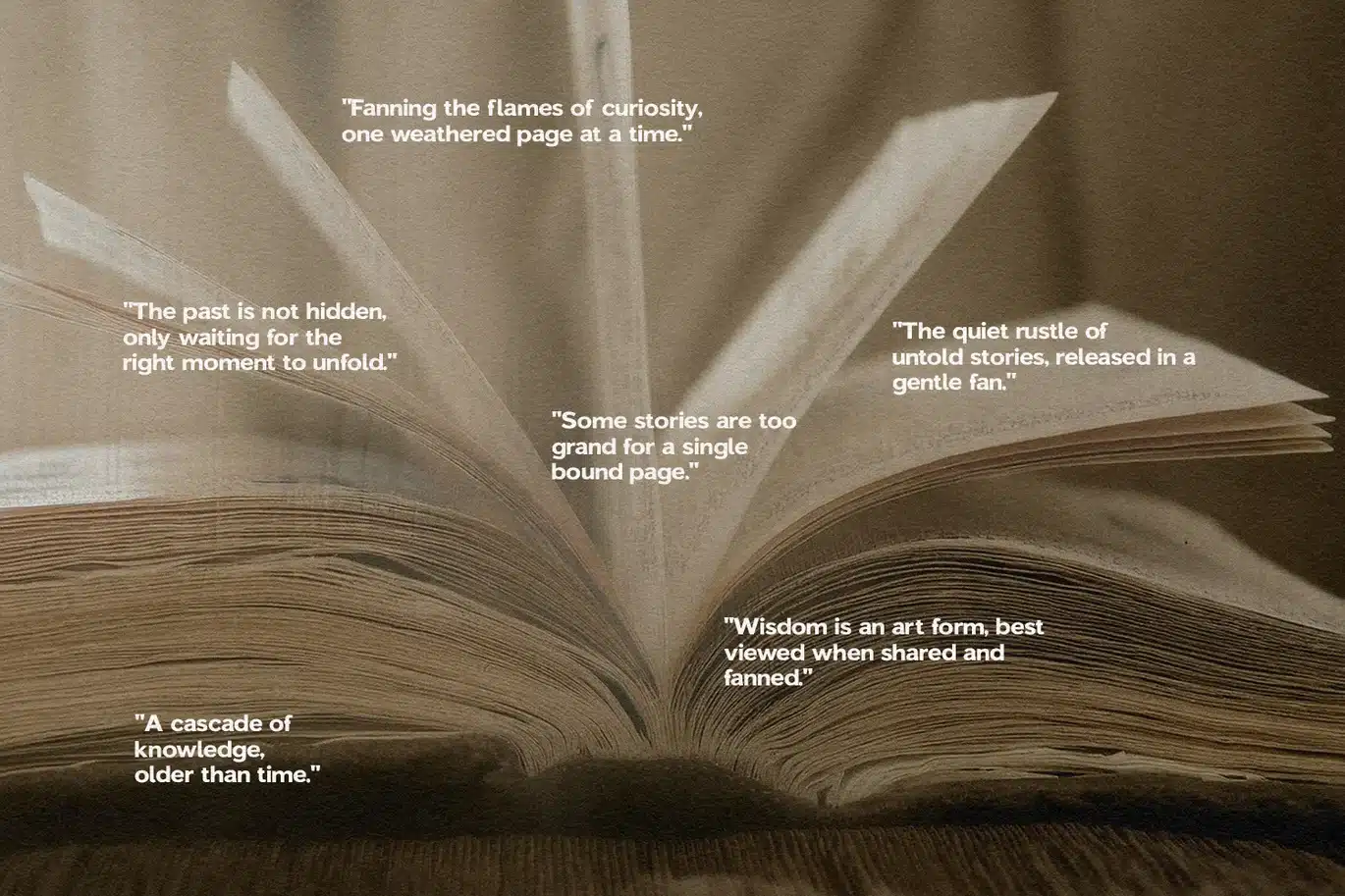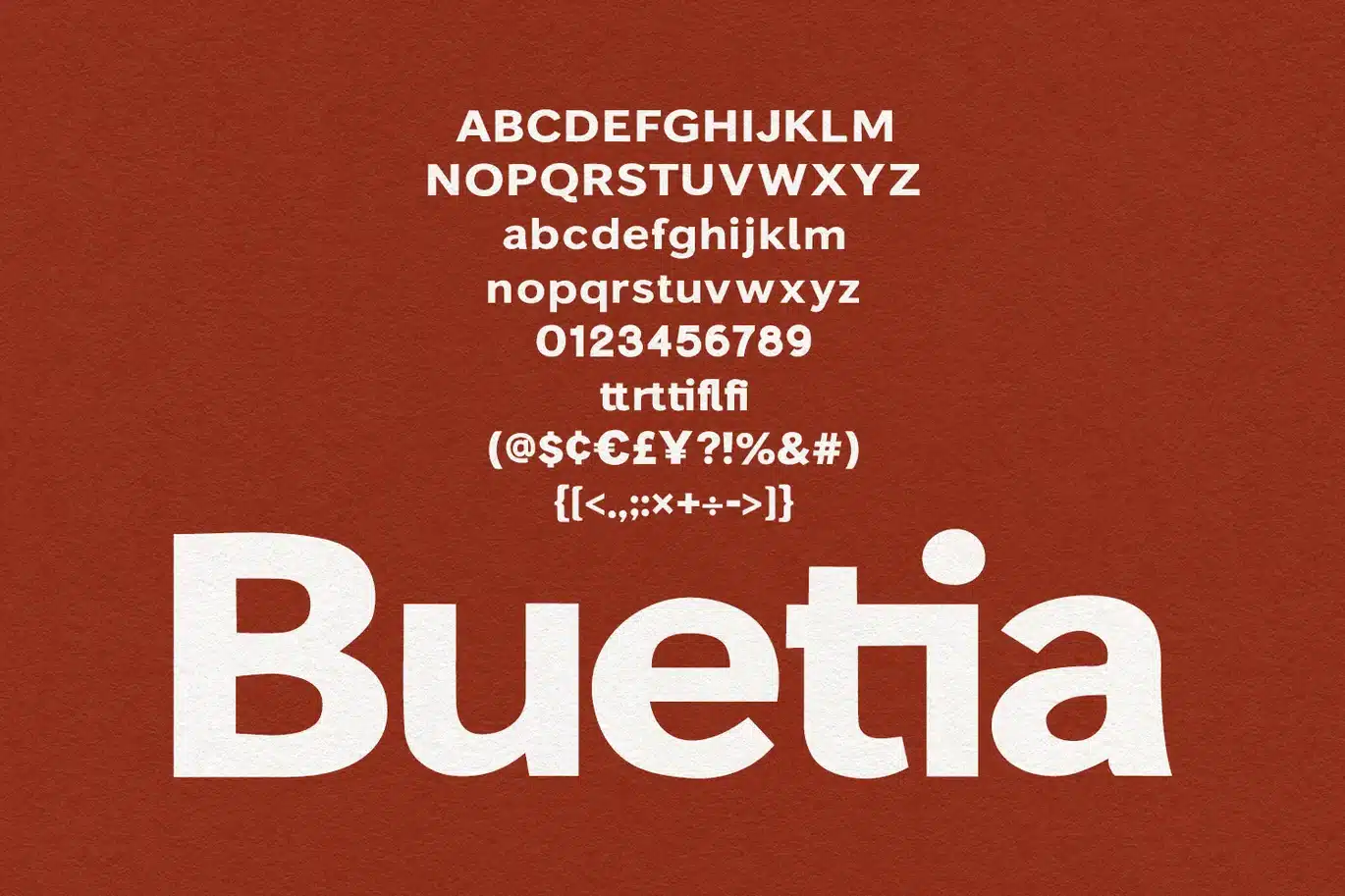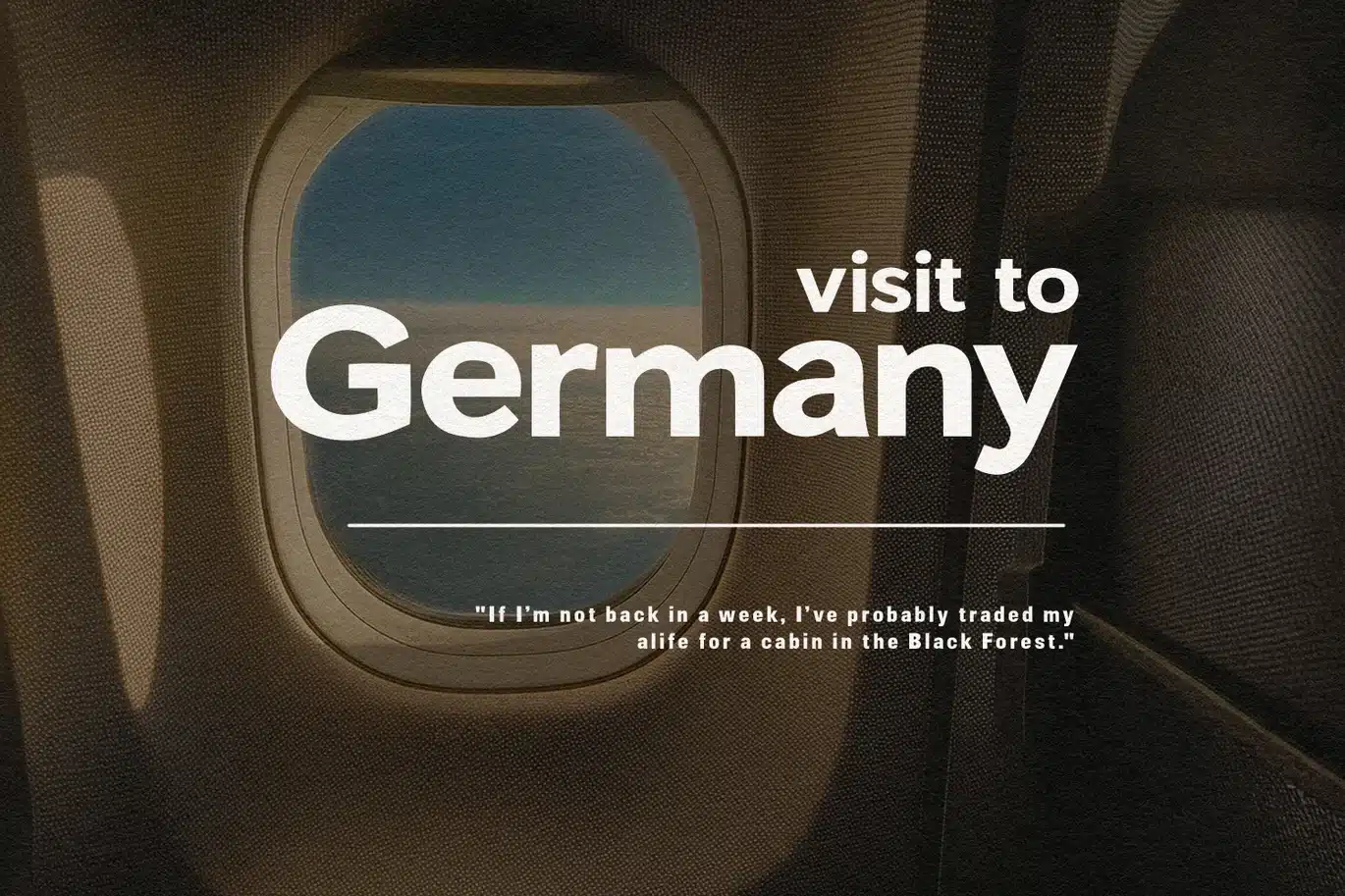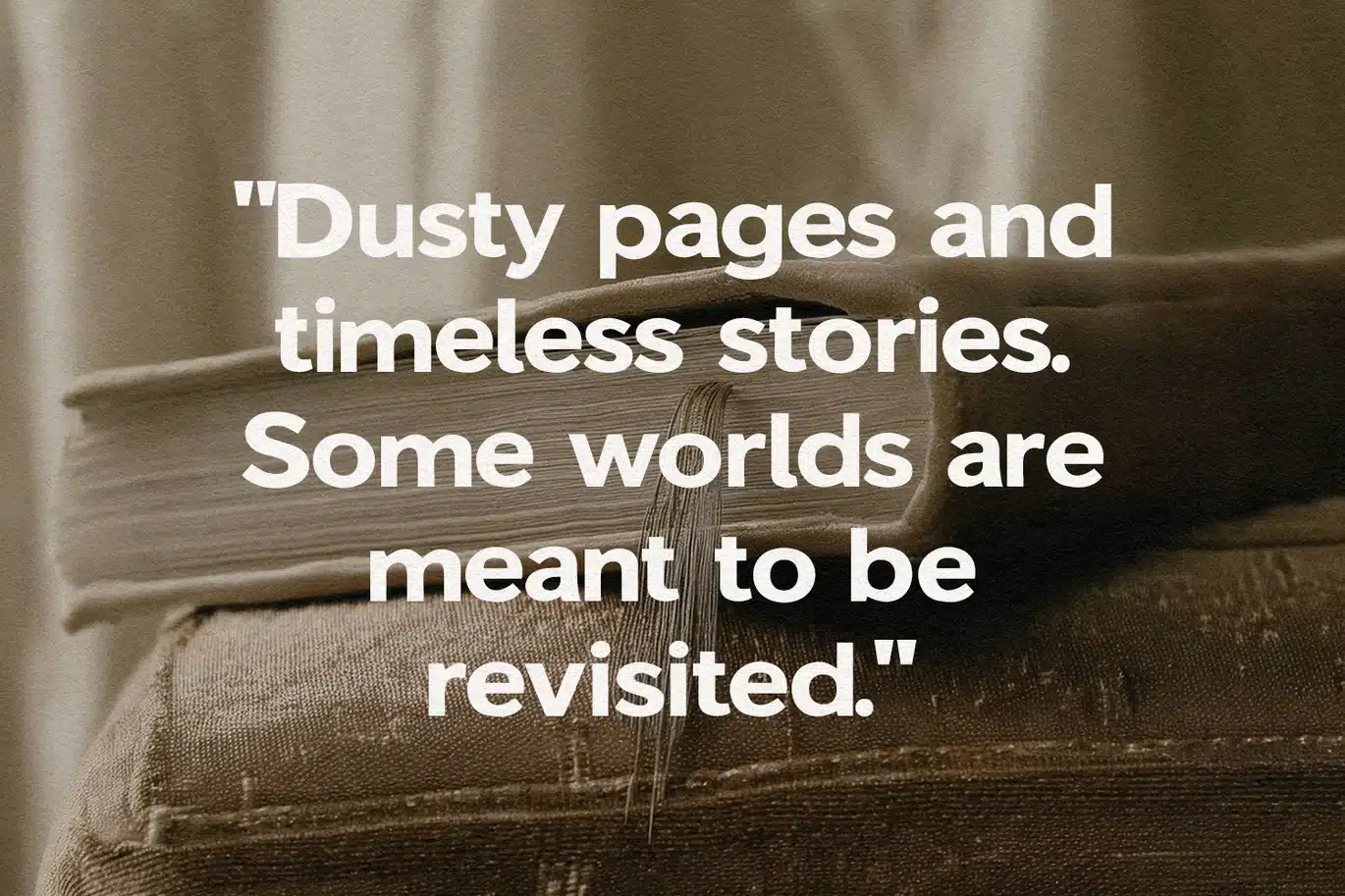
Buetia Modern Bold Sans Serif Font
Buetia is a high-impact, modern bold sans serif font that strikes the perfect balance between contemporary minimalism and classic sophistication. Featuring clean lines and a solid weight, it is designed for maximum legibility and visual strength. Whether you are crafting editorial layouts, cinematic, or branding, Buetia provides a "timeless" feel that pairs beautifully with photography and textured backgrounds. It comes equipped with uppercase, lowercase, multilingual support, and unique ligatures, making it a versatile powerhouse for any creative project.